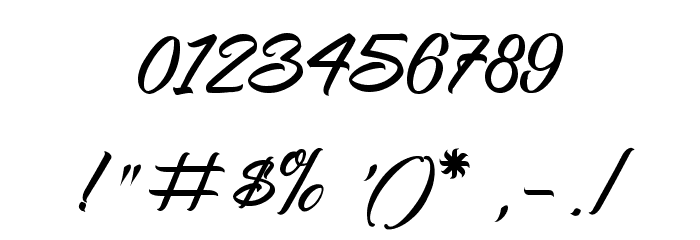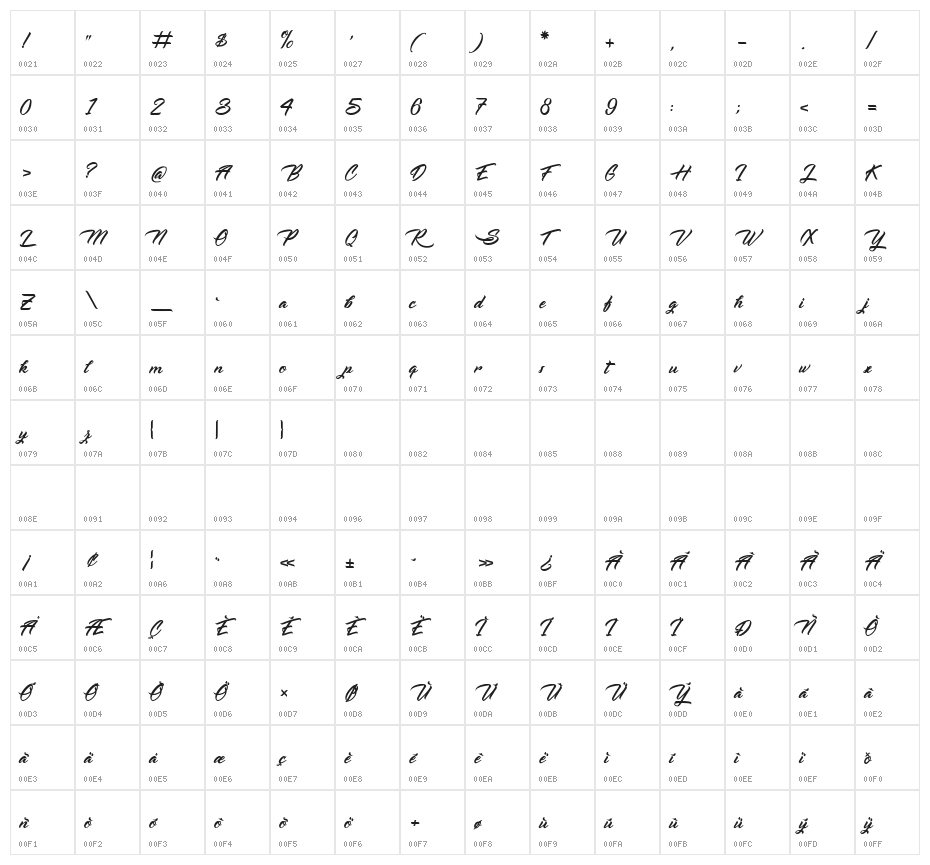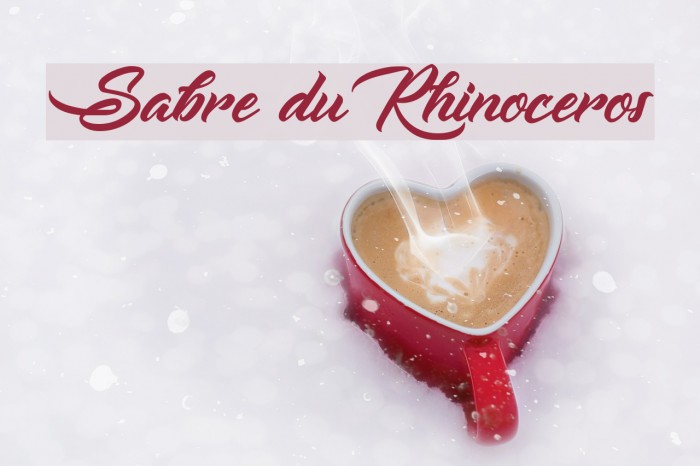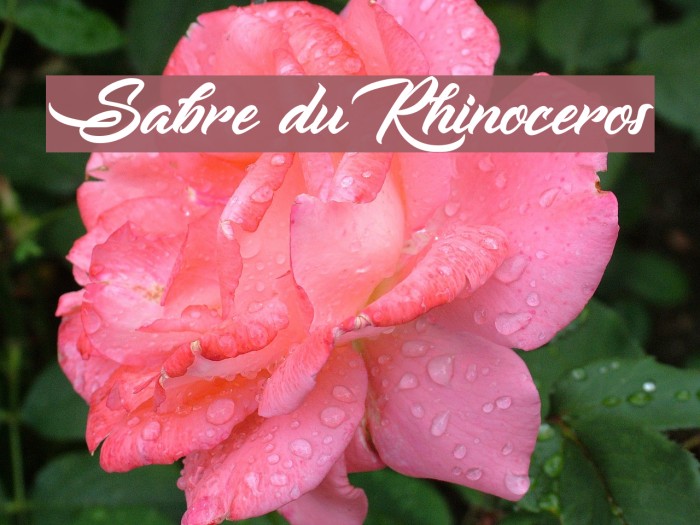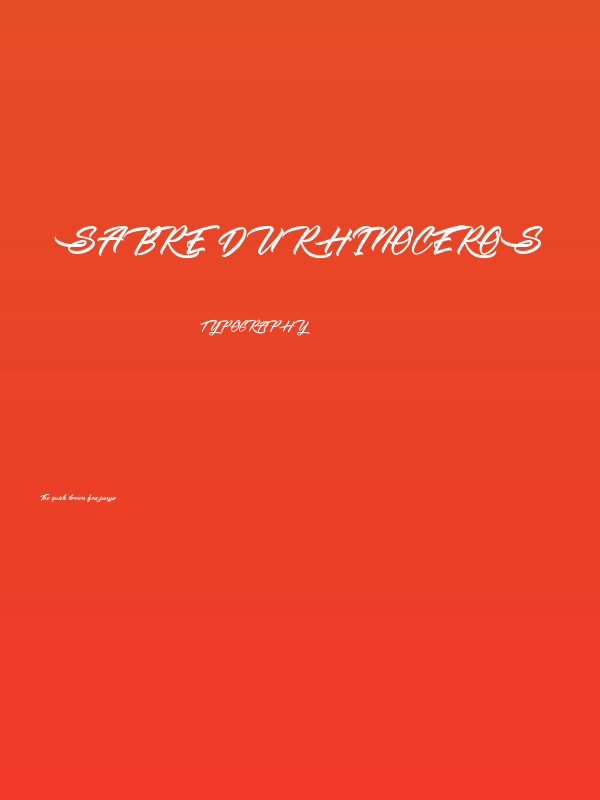
Sabre du Rhinoceros Font
Sabre du Rhinoceros Description
This font exudes a dynamic and elegant script style, characterized by its flowing, cursive letterforms. Each character is crafted with a sense of motion, featuring smooth curves and a slight slant that adds to its graceful appearance. The uppercase letters are bold and prominent, while the lowercase letters maintain a consistent flow, enhancing readability. The numerals are equally stylish, matching the overall aesthetic of the font. Special characters are integrated seamlessly, maintaining the script's fluidity. This font is ideal for projects that require a touch of sophistication and artistic flair.
| Overall Style | Elegant, Artistic |
| Use Case | Logos, Invitations, Decorative Text |
| Proposed Projects | Ideal for wedding invitations, elegant branding, greeting cards, and artistic posters. |